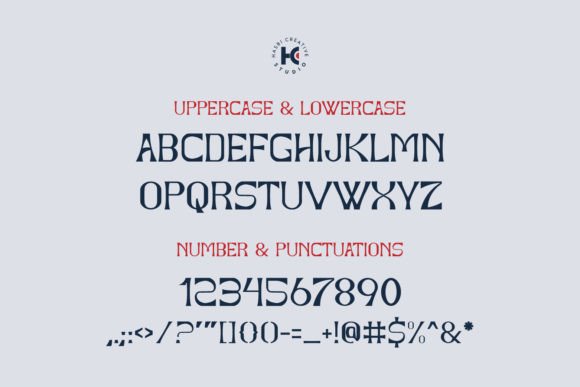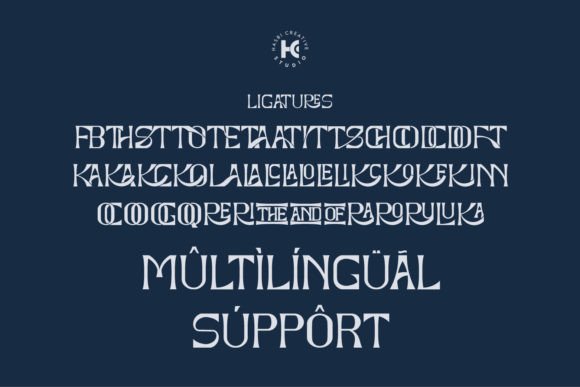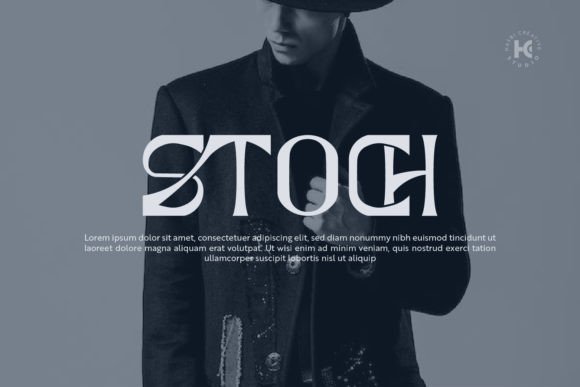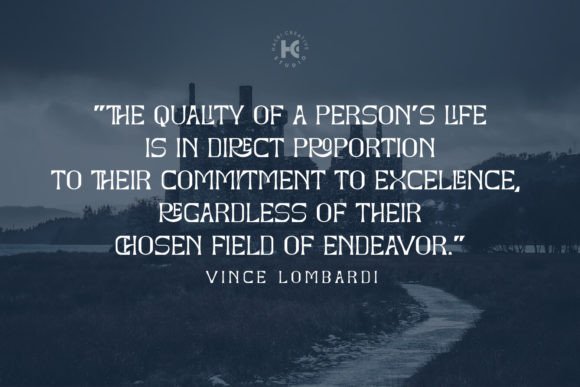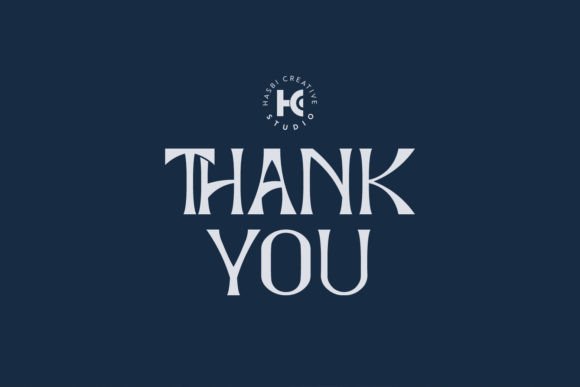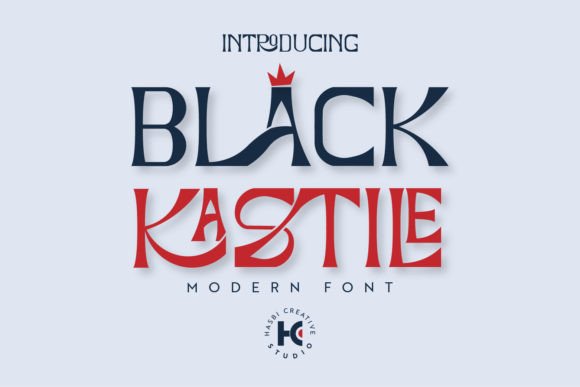
Introducing Black Kastile Modern Font: The Ultimate Choice for Designers and Crafters
Are you a designer or crafter looking for a modern and sleek font to elevate your creative projects? Look no further than the Black Kastile Modern Font, an all-capital font designed to make a statement. With its clean lines, bold appearance, and versatility, this font is perfect for a wide range of applications, from headings and flyers to product packaging and apparel designs.
Key Features of Black Kastile Modern Font
- All-Capital Font: The Black Kastile Modern Font is an all-capital font, making it perfect for creating bold and eye-catching headings, titles, and logotypes.
- Ligatures, Numerals, and Punctuations: The Black Kastile Modern Font includes ligatures, numerals, and punctuations, providing you with a wide range of typographic options to enhance your designs.
- Endless Design Possibilities: With its versatility and flexibility, this font can be used for a variety of projects, including headings, flyers, greeting cards, product packaging, book covers, printed quotes, logotypes, apparel designs, album covers, and more.
Why Choose Black Kastile Modern Font?
So, what sets the Black Kastile Modern Font apart from other fonts on the market? Here are just a few reasons why designers and crafters are falling in love with this font:
- Unique and Modern Design: The Black Kastile Modern Font boasts a unique and modern design that is sure to grab attention and make your designs stand out from the crowd.
- High-Quality and Professional: The Black Kastile Modern Font is a high-quality, professional font that is perfect for both personal and commercial projects.
Whether you’re a seasoned designer or a crafter looking to add a professional touch to your projects, the Black Kastile Modern Font is the perfect choice. Here are just a few ways you can use this font to elevate your designs:
- Headings and Titles: Use the Black Kastile Modern Font to create bold and eye-catching headings and titles for your designs, such as posters, flyers, and brochures.
- Logotypes and Branding: This font is perfect for creating logotypes and branding materials, such as business cards, letterheads, and packaging.
- Apparel Designs: The Black Kastile Modern Font is a great choice for apparel designs, such as t-shirts, hoodies, and hats.
- Digital and Print Media: Use this font to create stunning digital and print media, such as social media graphics, ebooks, and magazines.
Tips and Tricks for Getting the Most Out of Black Kastile Modern Font
Here are a few tips and tricks to help you get the most out of the Black Kastile Modern Font:
- Pair with Other Fonts: The Black Kastile Modern Font pairs well with other fonts, so feel free to get creative and experiment with different font combinations.
- Use Ligatures and Numerals: Take advantage of the font’s ligatures and numerals to add an extra touch of sophistication to your designs.
In conclusion, the Black Kastile Modern Font is a versatile, modern, and sleek font that is perfect for designers and crafters looking to elevate their creative projects. With its all-capital design, ligatures, numerals, and punctuations, this font is suitable for a wide range of applications, from headings and flyers to product packaging and apparel designs. So why wait? Download the Black Kastile Modern Font today and start creating stunning designs that are sure to impress!